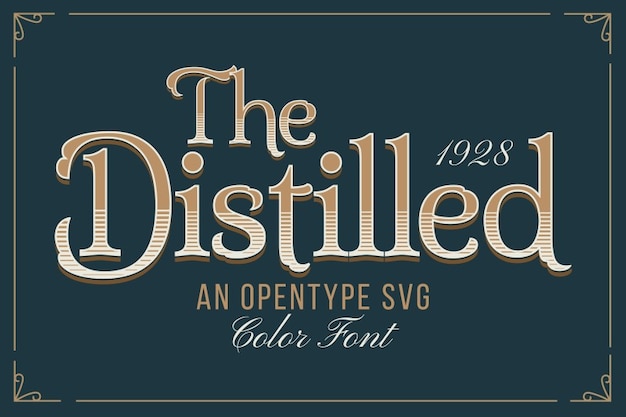
"The Distilled" is a nostalgic font that channels the essence of retro and vintage design. Each letter exudes an antique charm with its classic, timeless style, reminiscent of old typewriters and signage from yesteryears. Perfect for evoking a sense of nostalgia and authenticity in your projects, "The Distilled" adds a touch of vintage elegance, making it ideal for logos, posters, and branding that aim to capture the timeless allure of bygone eras.